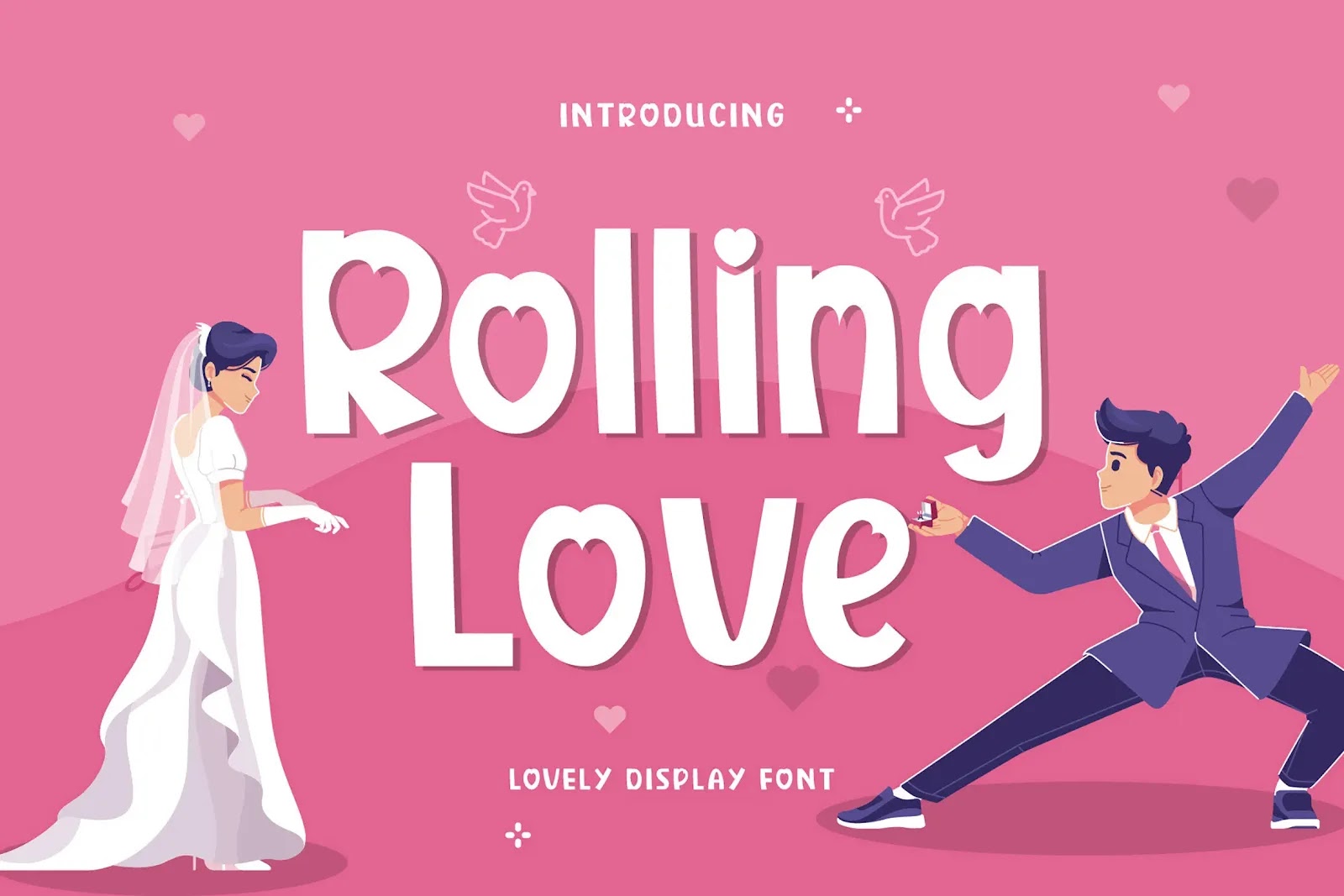
Rolling Love Font is a charming display typeface designed to infuse warmth and personality into any creative project. With its handcrafted appeal and playful character, this font is perfect for designers seeking a touch of whimsy and originality. The organic curves and unique letterforms give it a welcoming and expressive look, ideal for projects that aim to connect emotionally with audiences.
This typeface is well-suited for a variety of design applications, including product packaging, handicrafts, quotes, labels, photography watermarks, and logo or branding projects. Whether you're creating designs for artisans, lifestyle brands, or heartfelt messages, Rolling Love Font adds a personal and memorable touch that stands out.